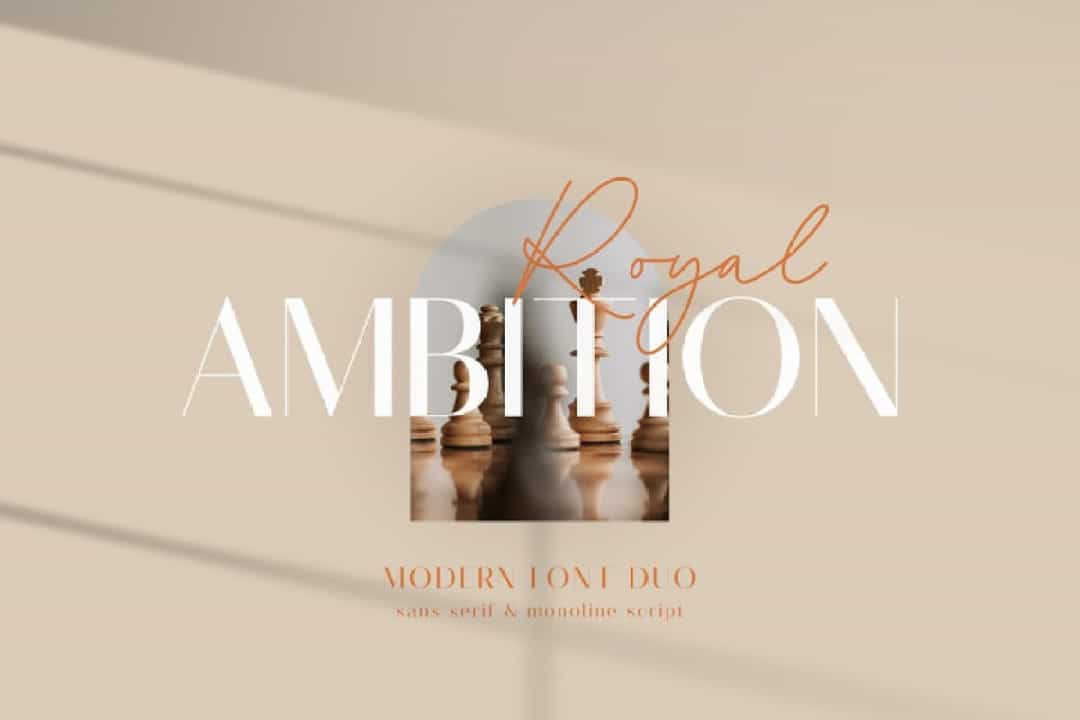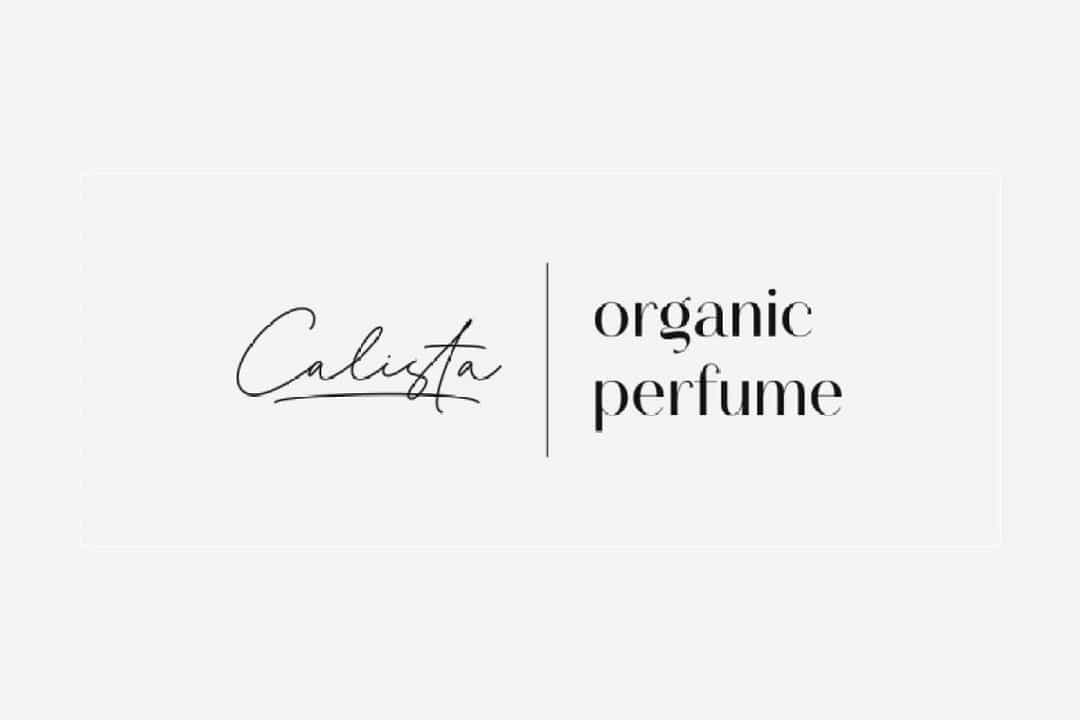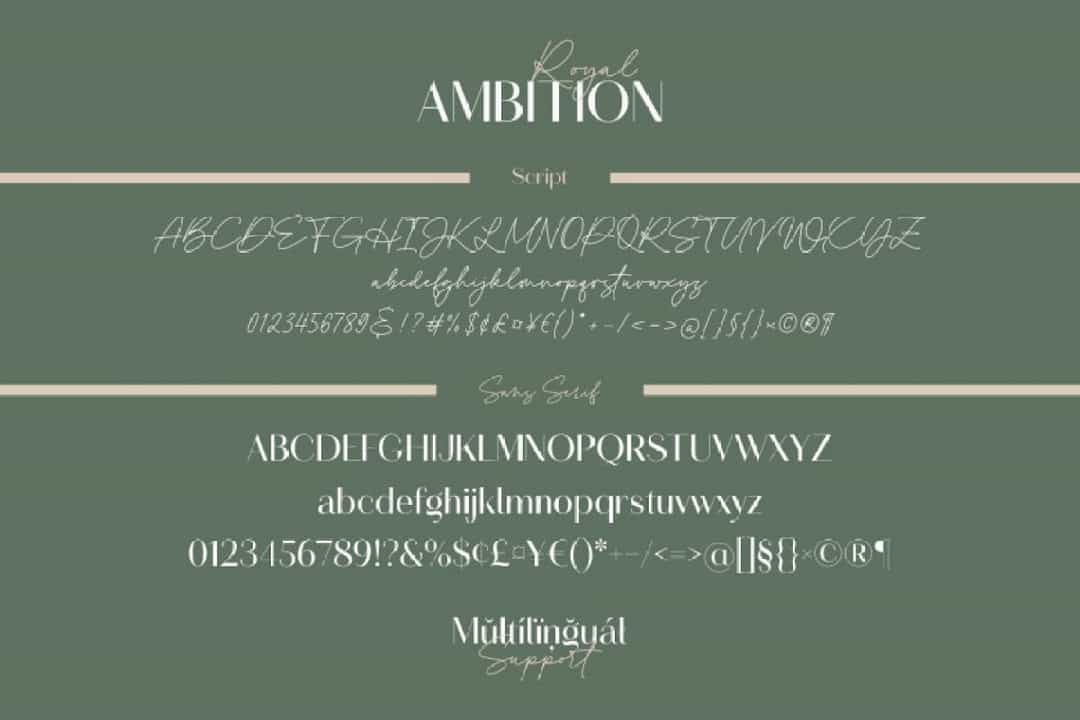
Royal Ambition is an ideal combination of modern sans serif and script fonts, designed to add a modern, cheerful touch to any craft project. Perfect for logo design, wedding invitations, posters blogs posts on blogs social media etc!!